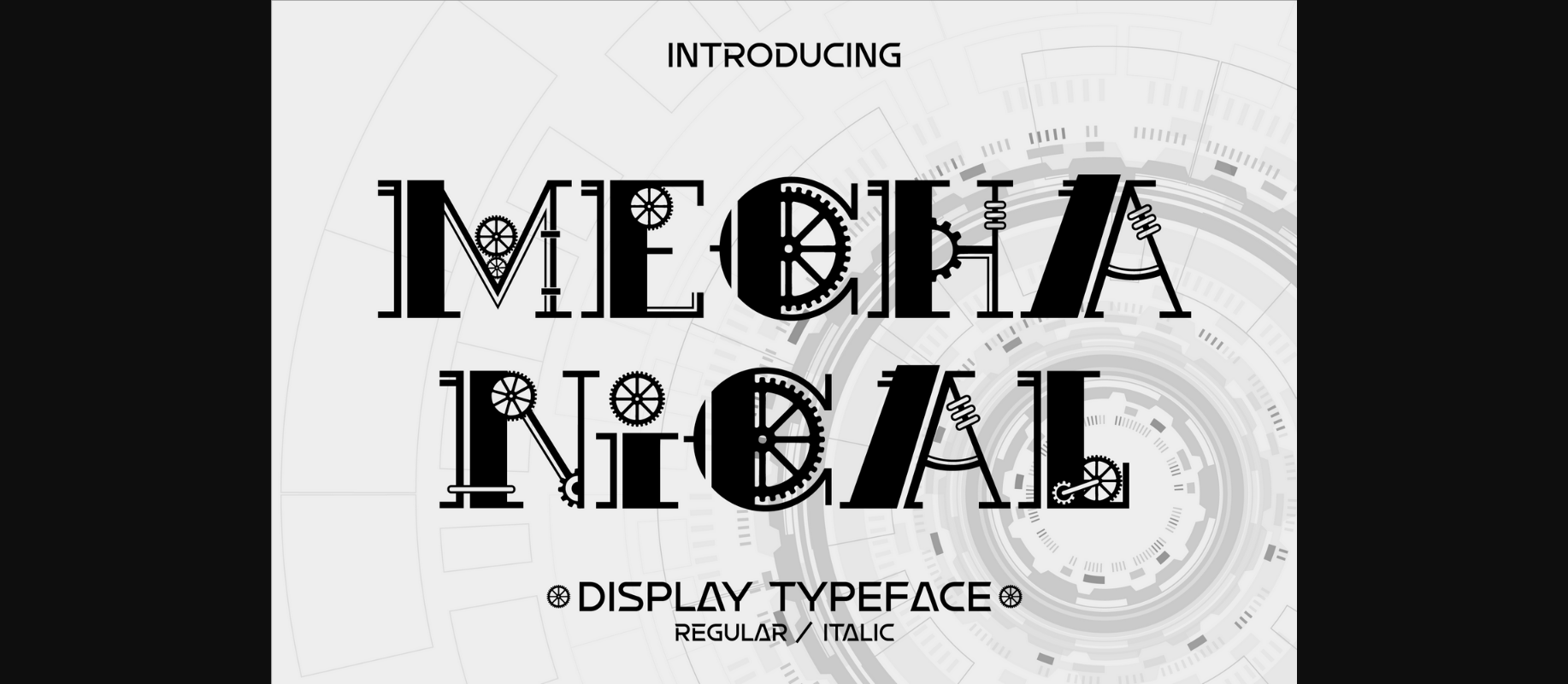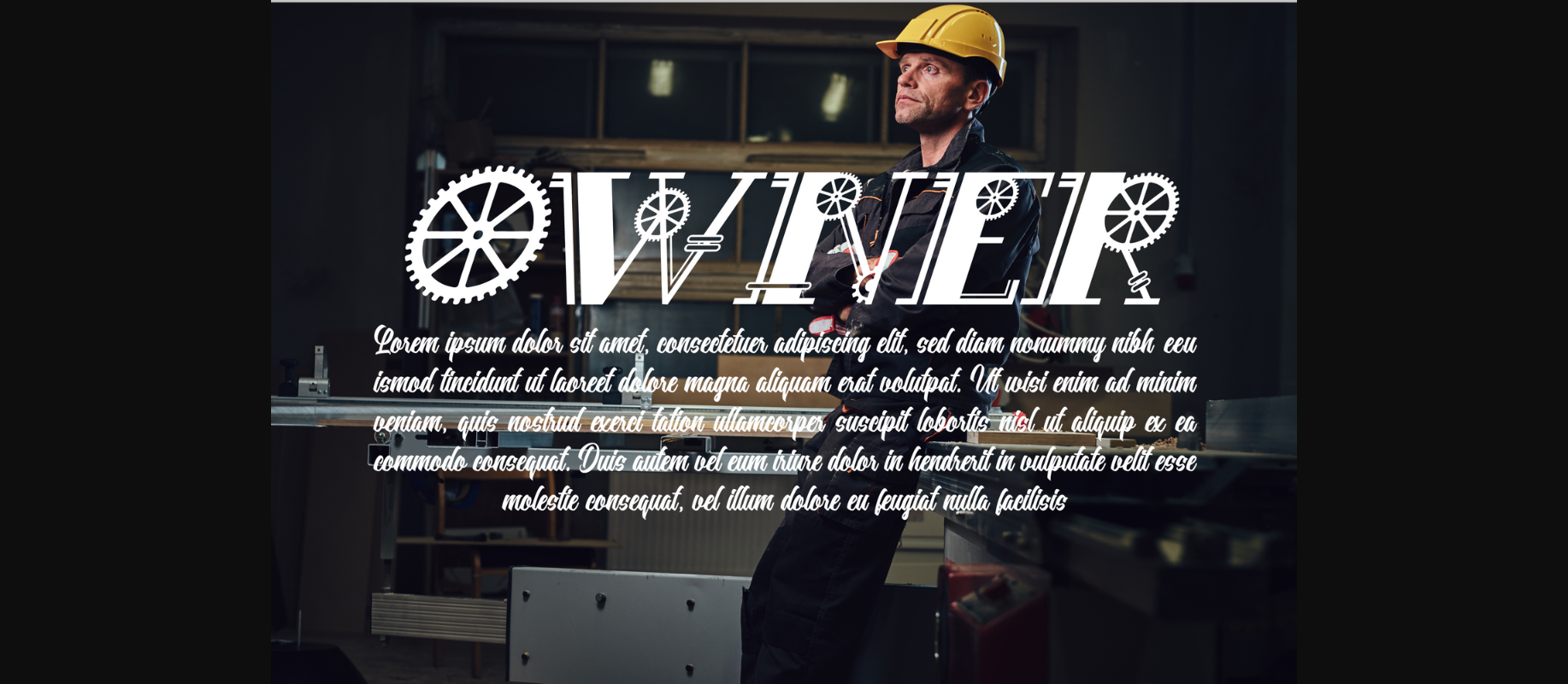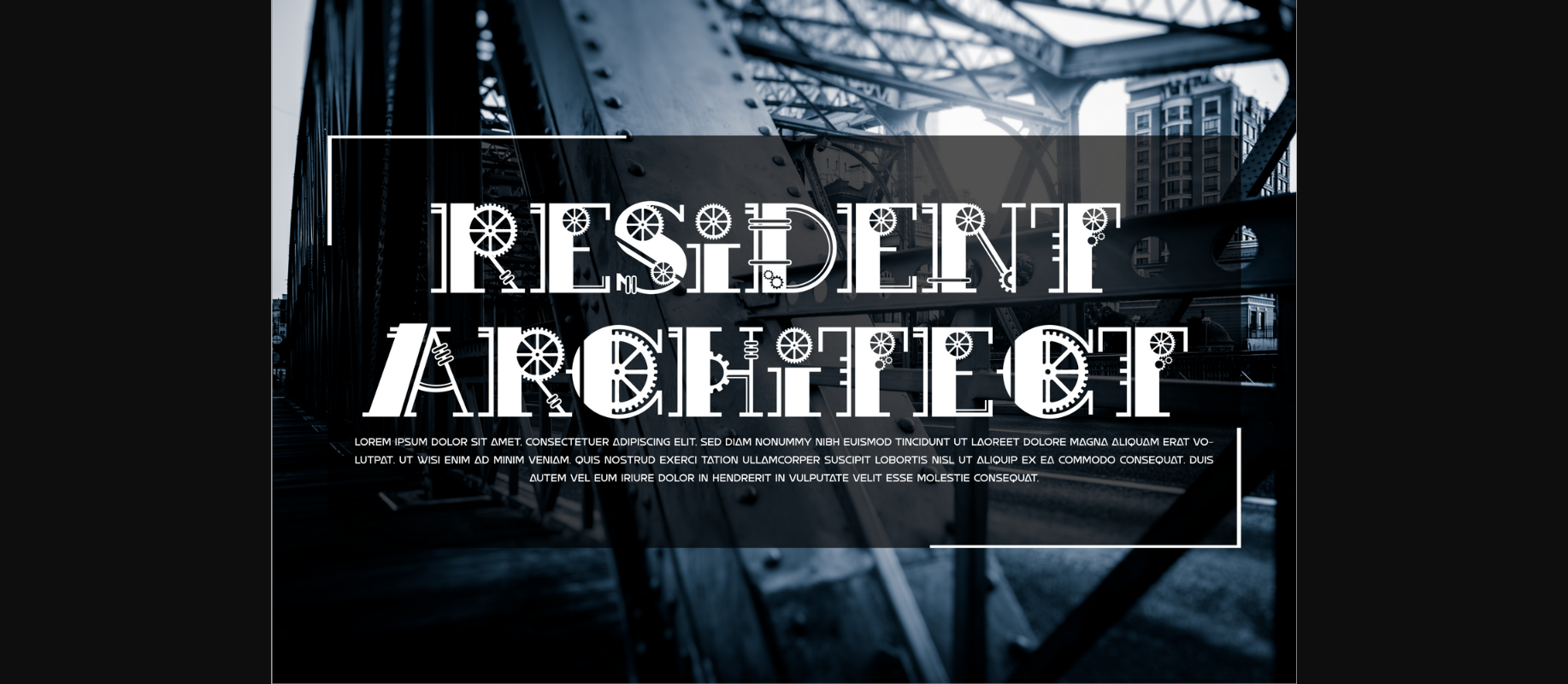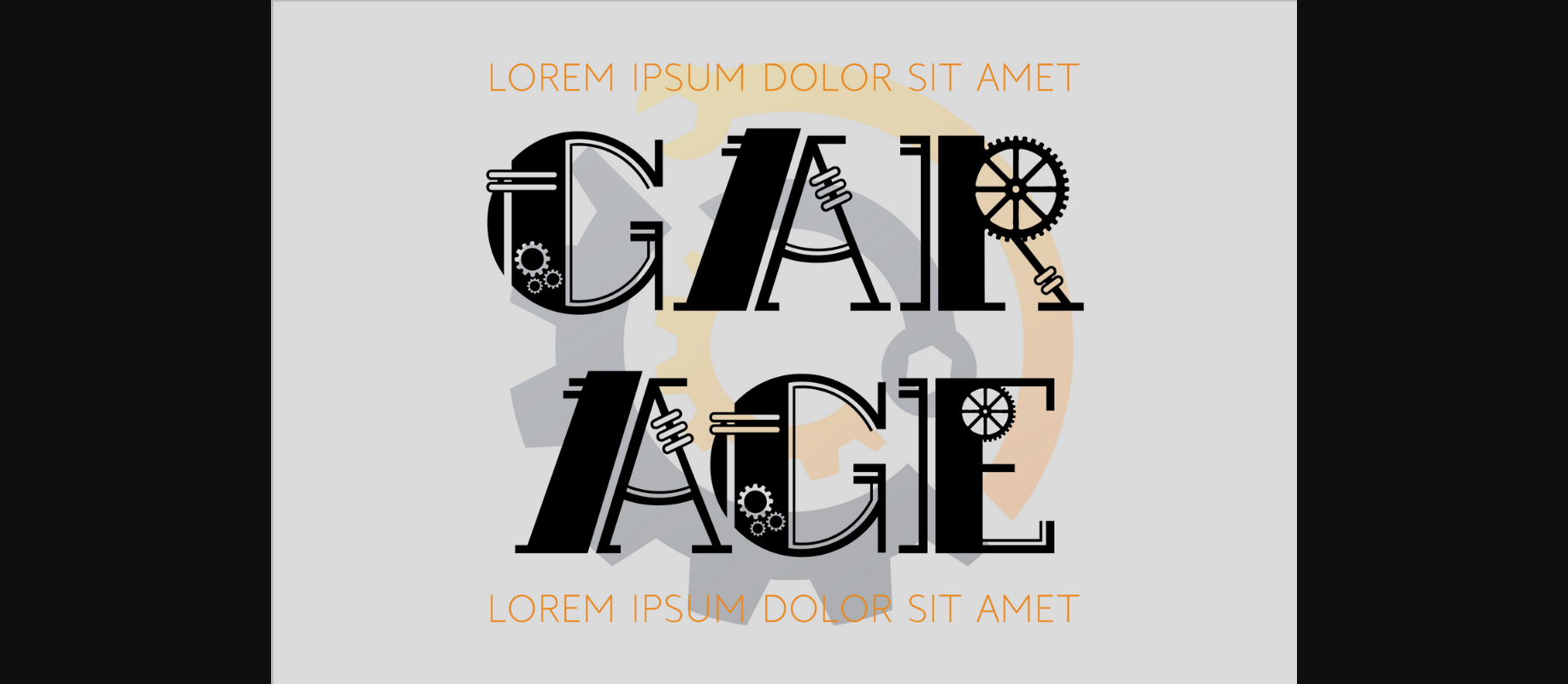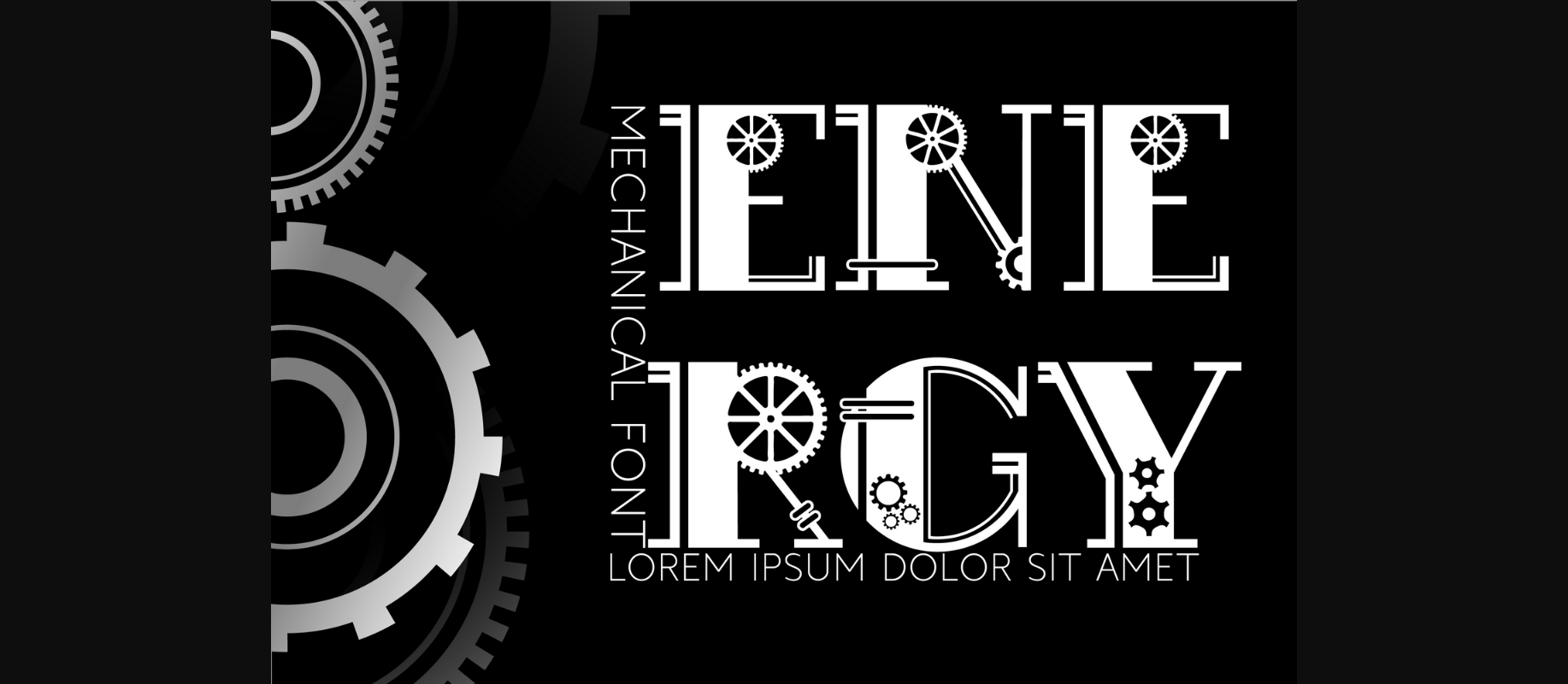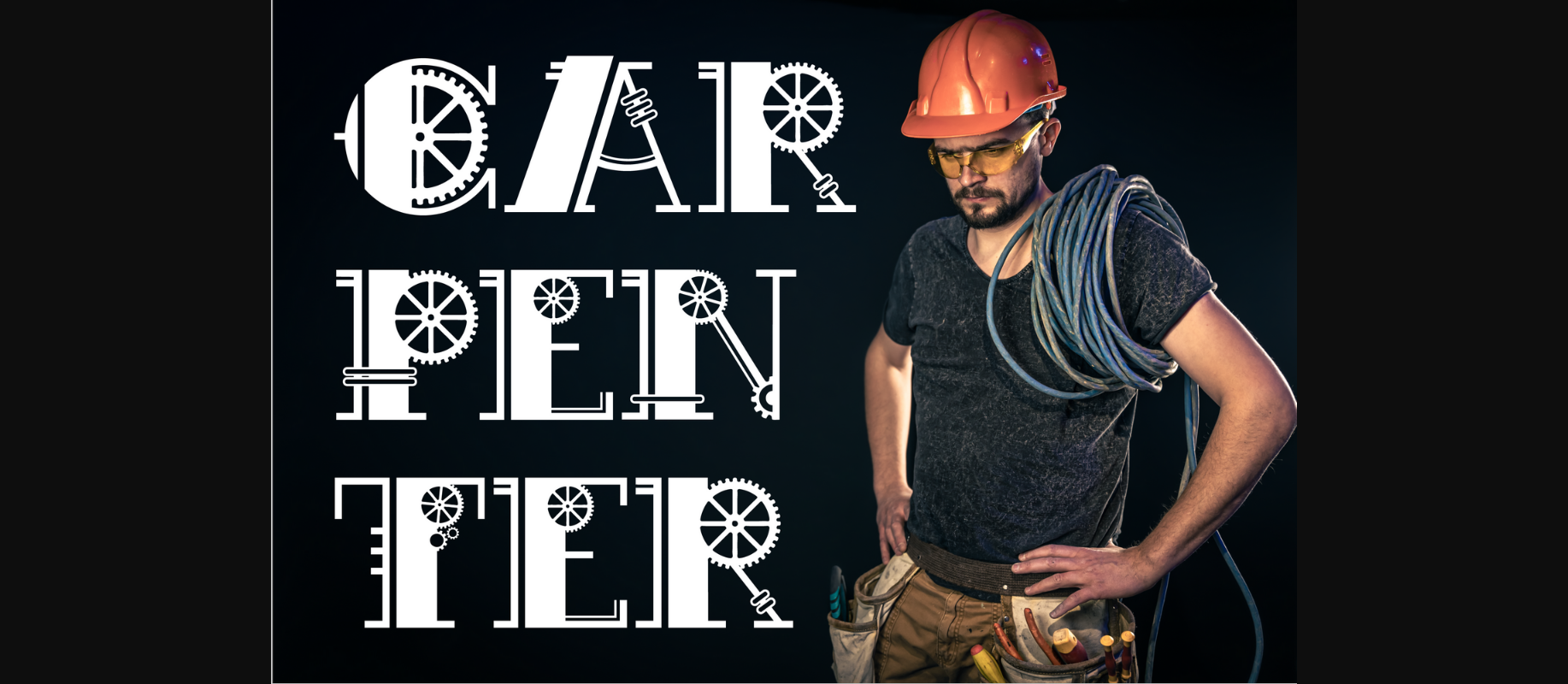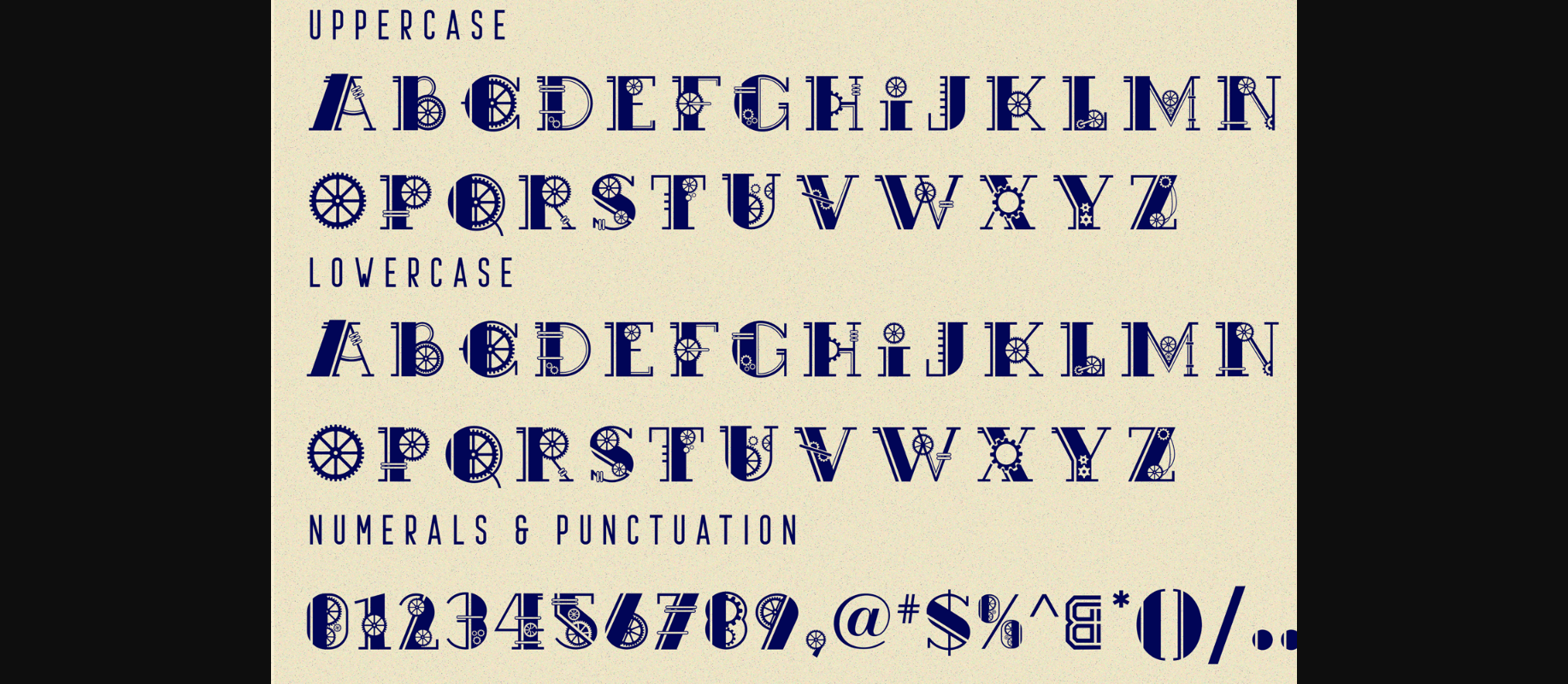
Mechanical Font
About Mechanical Font
Mechanical Font is a very unusual font for headings consisting only of capital letters of the Latin alphabet, the design is made in the style of mechanisms. You will be able to form words and any text characters from that font. You can create your own look and use it for logos, labels, posters, magazines, books, cards, and packaging.